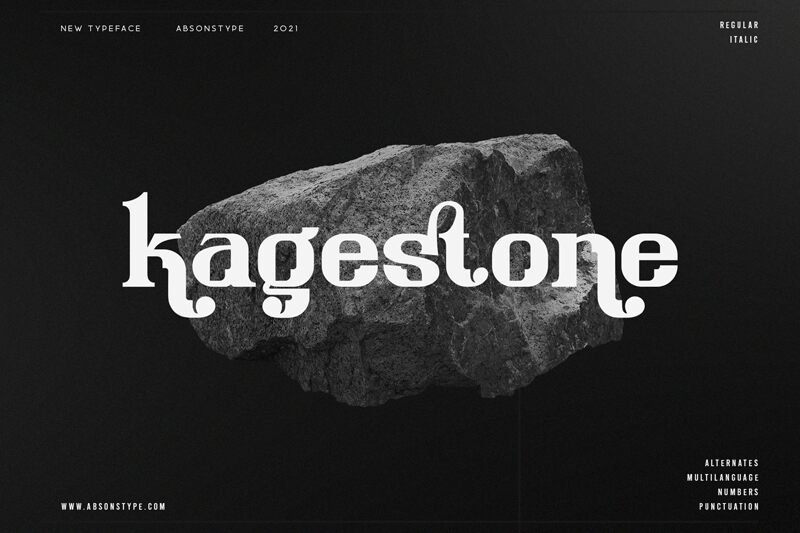
kagestone
Kagestone is a wide, bold display font designed by Sarwo Edhi Prayitno. It's perfect for projects requiring an eye-catching and powerful aesthetic, such as posters, flyers, logos, or apparel designs.